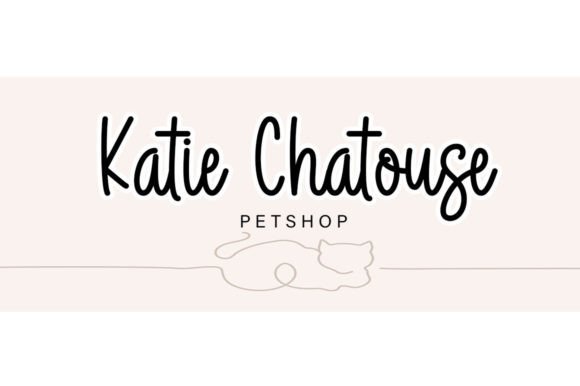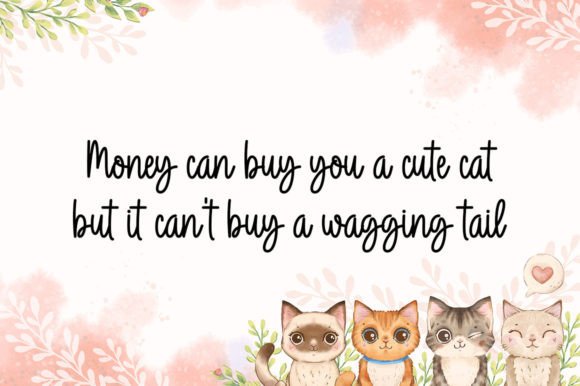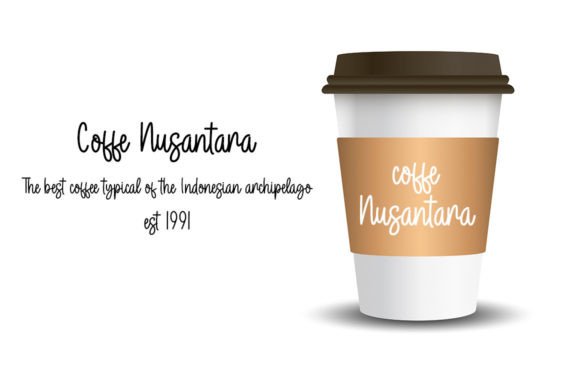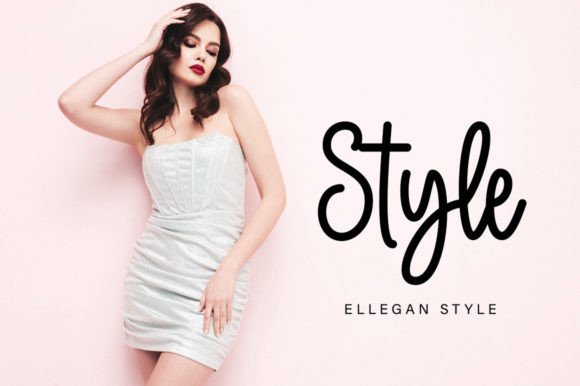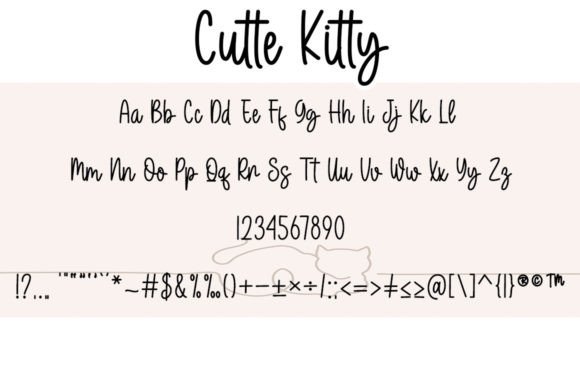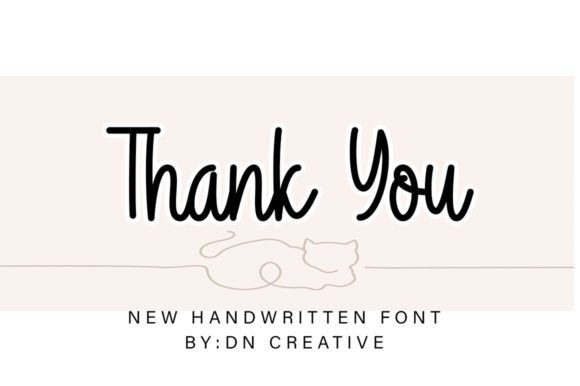
Introducing Cutte Kitty Font: The Sweet and Friendly Handwritten Font for Your Design Needs
Are you a designer or crafter looking for a font that adds a touch of sweetness and friendliness to your designs? Look no further than Cutte Kitty Font! This beautiful handwritten font is perfect for creating wedding invitations, cards, and other designs that require a fun and playful touch.
What is Cutte Kitty Font?
Cutte Kitty Font is a sweet and friendly handwritten font that is sure to capture the hearts of your audience. Its cute and fun design makes it ideal for a variety of design projects, from wedding invitations and cards to social media graphics and more. The font’s playful and whimsical feel is sure to add a touch of personality to any design.
Key Features of Cutte Kitty Font
- Handwritten design: Cutte Kitty Font features a beautiful handwritten design that is sure to add a personal touch to your designs.
- Cute and fun: The font’s cute and fun design makes it perfect for designs that require a playful touch.
- Versatile: Cutte Kitty Font is versatile and can be used for a variety of design projects, from wedding invitations and cards to social media graphics and more.
- Easy to read: The font is easy to read, making it perfect for designs that require a clear and concise message.
Uses for Cutte Kitty Font
Cutte Kitty Font is perfect for a variety of design projects, including:
- Wedding invitations: The font’s sweet and friendly design makes it perfect for wedding invitations and other wedding-related designs.
- Cards: Cutte Kitty Font is ideal for creating fun and playful cards for special occasions, such as birthdays and holidays.
- Social media graphics: The font’s cute and fun design makes it perfect for social media graphics, such as Facebook posts and Instagram stories.
- Branding: Cutte Kitty Font can be used for branding projects, such as logos and packaging design.
Why Choose Cutte Kitty Font?
There are many reasons why you should choose Cutte Kitty Font for your design needs. Here are just a few:
- Unique design: Cutte Kitty Font features a unique design that is sure to stand out from the crowd.
- High-quality: The font is high-quality and features a clear and concise design.
Tips for Using Cutte Kitty Font
Here are a few tips for using Cutte Kitty Font in your designs:
- Use it for headlines: Cutte Kitty Font is perfect for headlines and titles, where its cute and fun design can really shine.
- Pair it with other fonts: The font pairs well with other fonts, such as sans-serif fonts and script fonts.
- Use it for body text: Cutte Kitty Font is easy to read, making it perfect for body text.
| Font Name | Cutte Kitty Font |
| Author | DN Creative |